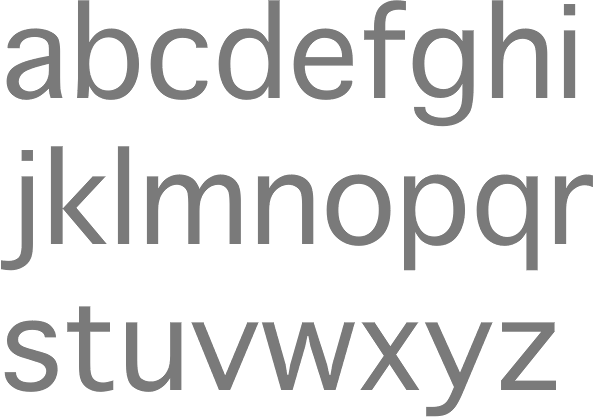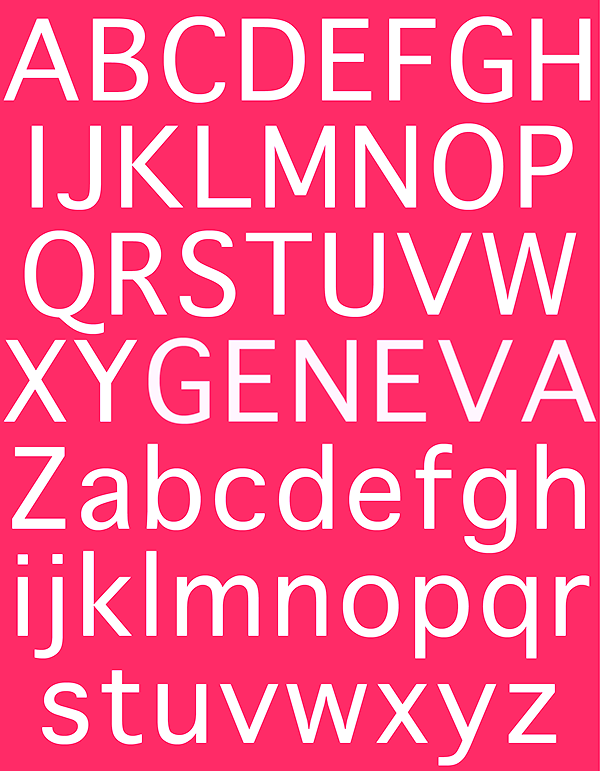
Born in 1954 in Ithaca, NY, Susan designed some of the original bitmap fonts for the original Mac in 1983-1984, including Chicago, New York, Monaco (download), FiveDots, Geneva, Cairo (dingbat font), LosAngeles, Athens and San Francisco (1984, ransom note font), while being a Creative Director at Apple (1982-1985). For Danger Research, she created the bitmap fonts Hamilton 5, Hamilton 6, Waverley 5, Waverley 6, Bryant 7 (2000). Interview with Cybergrrl. Atomic Media sells these pixel fonts of hers: Kare Five Dots (family), Ramona (script pixel font), Harry, Everett, Kare Six Dots (family), Biology (dings), Kare Dingbats, MiniFood, Ned, Sampler. She explains the choice of names for the original Mac fonts: The first Macintosh font was designed to be a bold system font with no jagged diagonals, and was originally called "Elefont". There were going to be lots of fonts, so we were looking for a set of attractive, related names. Andy Hertzfeld and I had met in high school in suburban Philadelphia, so we started naming the other fonts after stops on the Paoli Local commuter train: Overbrook, Merion, Ardmore, and Rosemont. (Ransom was the only one that broke that convention; it was a font of mismatched letters intended to evoke messages from kidnappers made from cut-out letters). One day Steve Jobs stopped by the software group, as he often did at the end of the day. He frowned as he looked at the font names on a menu. "What are those names?", he asked, and we explained about the Paoli Local. "Well", he said, "cities are OK, but not little cities that nobody's ever heard of. They ought to be WORLD CLASS cities!" So that is how Chicago (Elefont), New York, Geneva, London, San Francisco (ransom note font), Toronto, and Venice (Bill Atkinson's script font) got their names. Kare is also known for the original set of Mac icons. The Apple fonts shown below are outline fonts made by Bigelow & Holmes on commission, based on Susan Kare's original pixel fonts. Susan Kare did not design the outline fonts sold by Apple at MyFonts. |